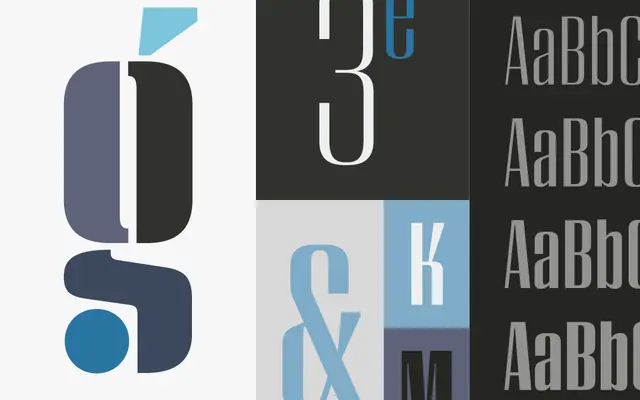
Peristyle
A high-contrast condensed sans for fashion and editorial work, designed to dodge period flavour and read as drama rather than nostalgia.
A condensed sans-serif family by H&Co built around amplified stroke contrast, drawn to bring drama and elegance to fashion, editorial and luxury work without tipping into Art Deco or sixties revival. Peristyle runs across multiple weights with italics, and the family extends into Peristyle Stencil, including bicolor Layers fonts whose colours balance automatically. OpenType stylistic sets let designers swap in alternate looks for headlines, mastheads and packaging.
H&Co frame Peristyle as a high-contrast condensed sans, designed to restore the effortless chic of the high-contrast sans without leaning into Art Deco, sixties funk or futurist styling. A Peristyle Stencil cut is included.